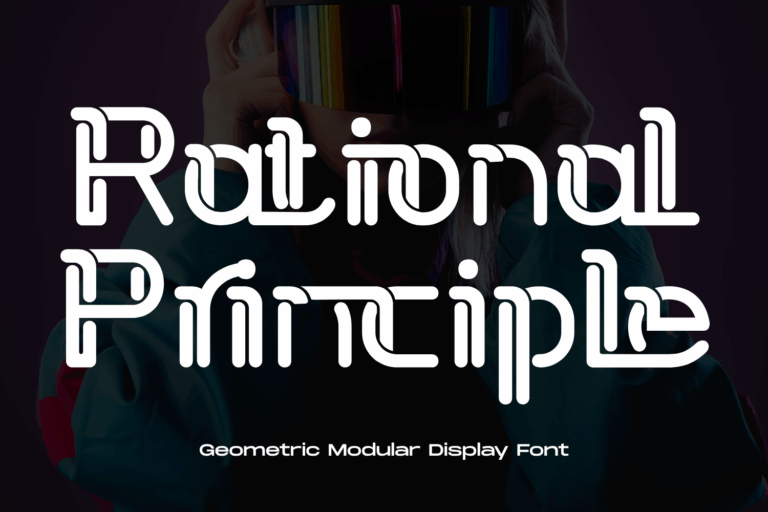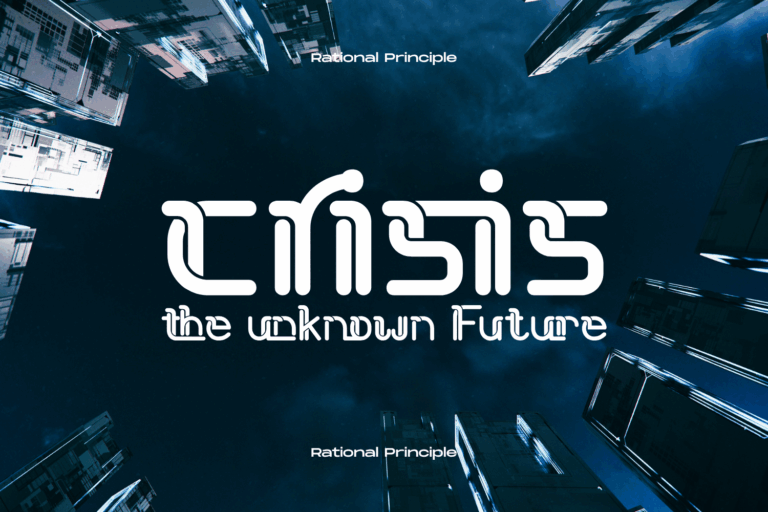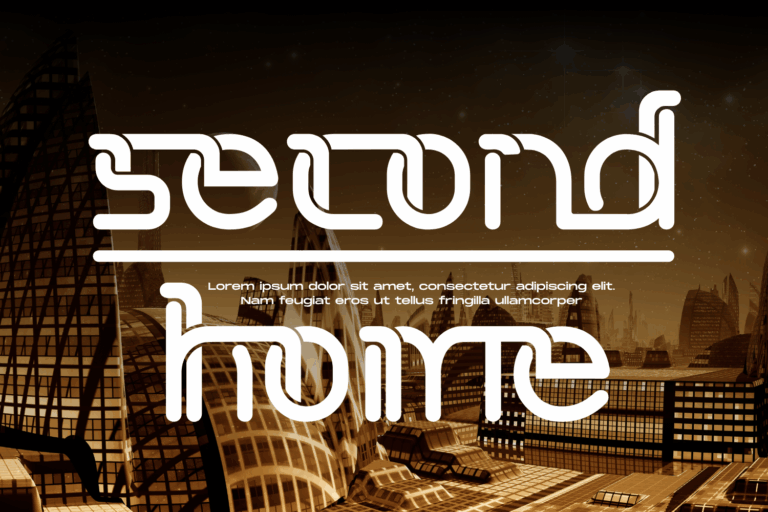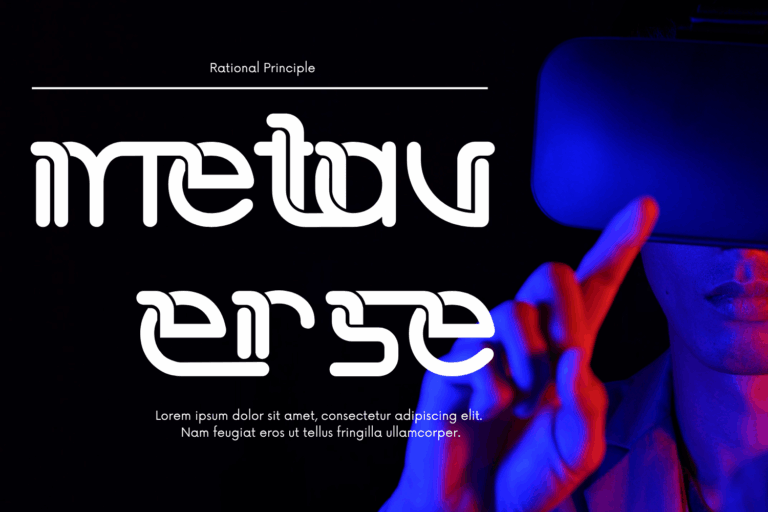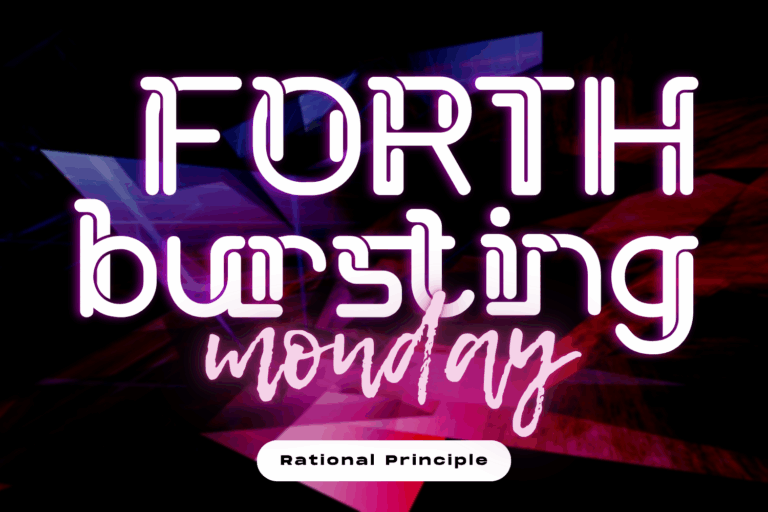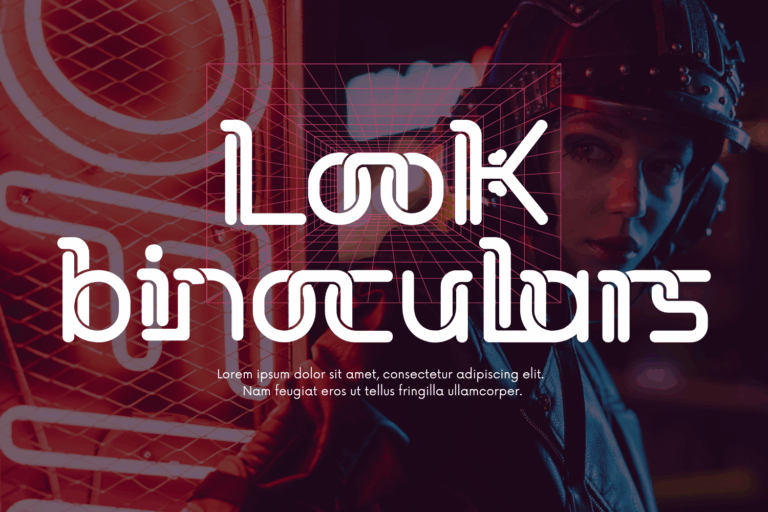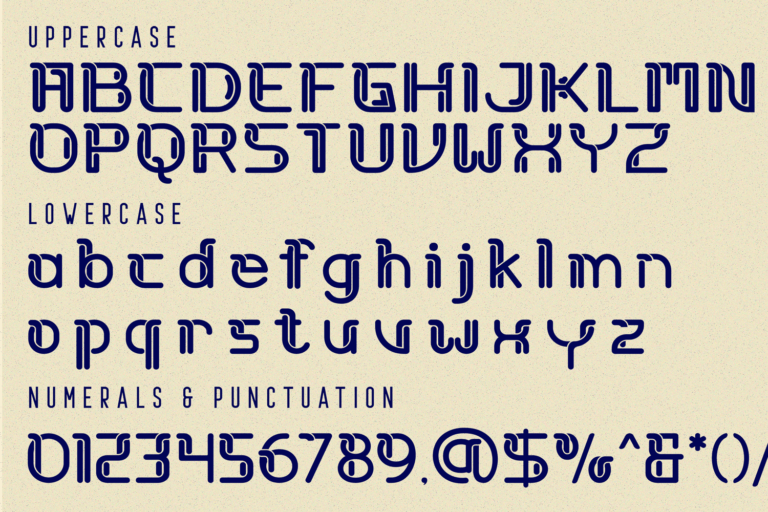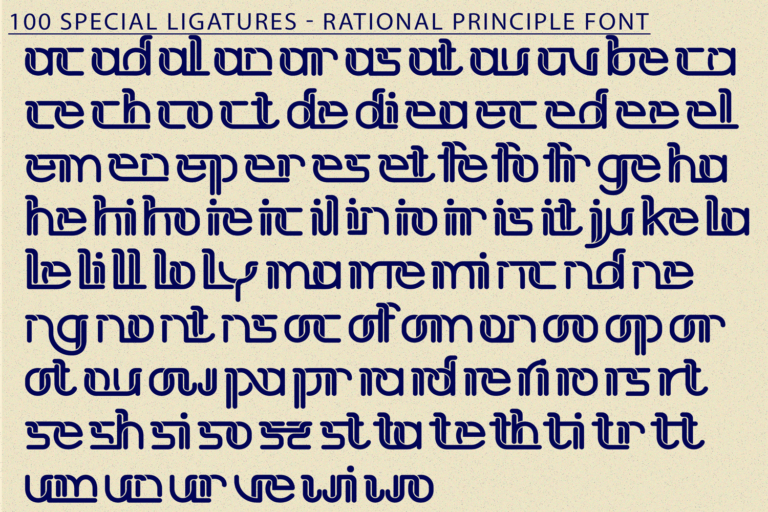
Rational Principle Font is a futuristic modular typeface designed with rounded terminals and circuit-inspired geometry. With a bold, ultra-modern aesthetic, this font blends technology, logic, and rhythm into a striking typographic system that is both readable and distinctive.
Each character is constructed from continuous stroke segments and circular terminals, creating a seamless, flow-like appearance. The clever use of space and stroke separation gives the font a mechanical yet humanized personality—ideal for high-tech branding, music visuals, fashion editorials, or any design that demands a sleek and forward-thinking tone.
Font Features:
• Uppercase and Lowercase letters
• ~100 Custom Ligatures
• Accented Characters (multilingual support)
ac ad al an ar as at au av be ca ce ch co ct de di ea ec ed ee el em en ep er es et fe fo fr ge ha he hi ho ie ic il in io ir is it ju ke la le li ll lo ly ma me mi nc nd ne ng no nt ns oc of om on oo op or ot ou ow pa pr ra rd re ri ro rs rt se sh si so ss st ta te th ti to tr tt um un ur ve wi wo
Rational Principle Font